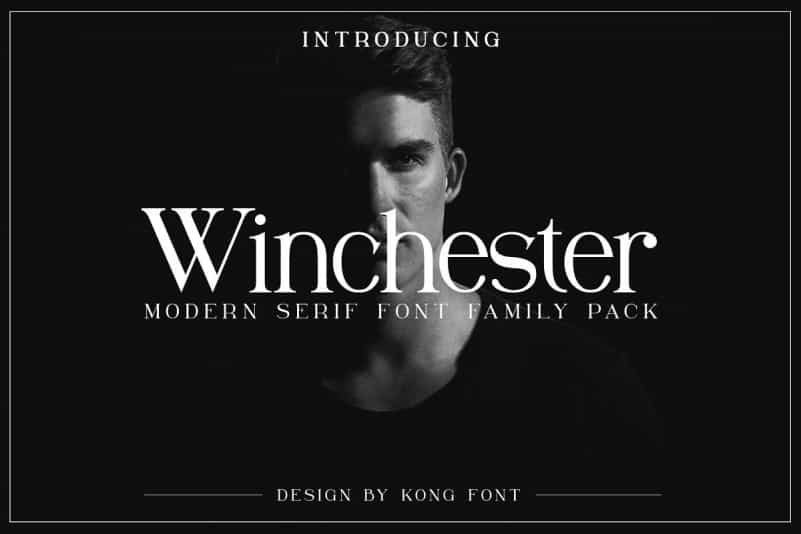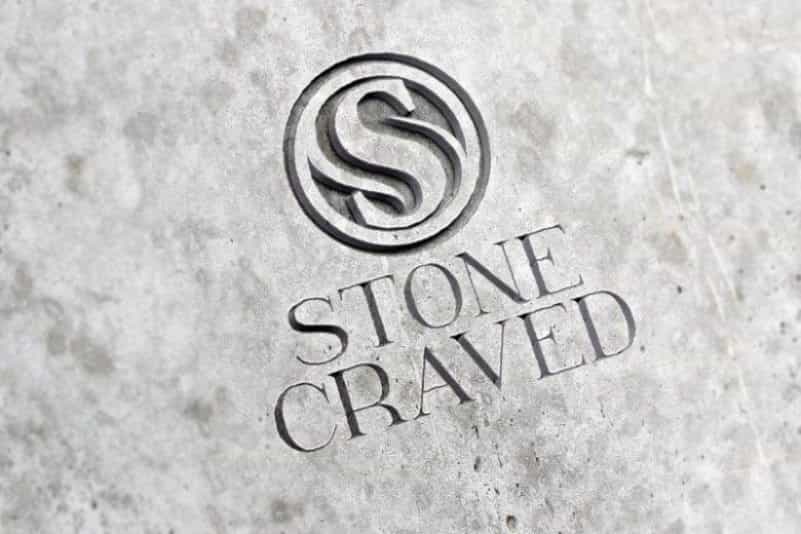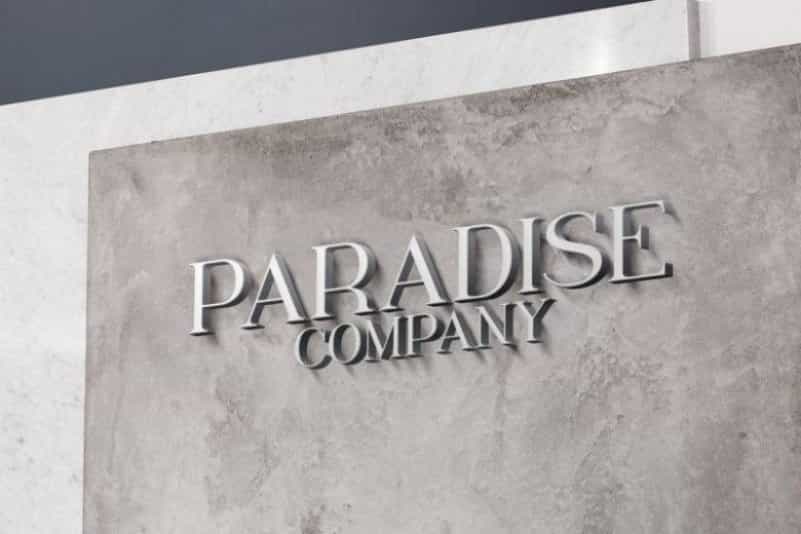
Winchester is a full-fledged serif font. Winchester has a character that is rich in beauty, its shape is made up of high contrast strokes for the normal optical style and moderate contrast strokes for the text styles which are suitable for reading.